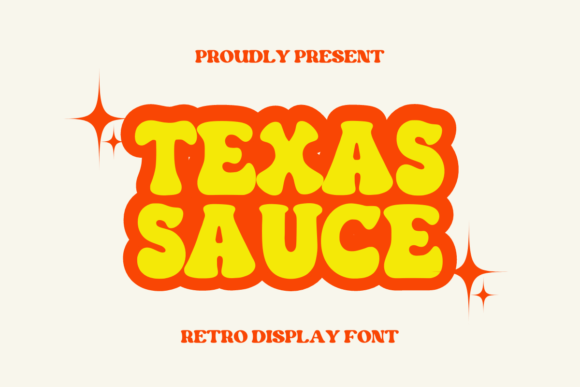
Get ready to add a dash of boldness and a dollop of vintage charm to your design projects with Texas Sauce Font, the ultimate display font family that oozes character and nostalgia. This unique creation from Masyafi Studio is not just any font; it's a journey through time, a fusion of classic aesthetics with a modern twist.
Texas Sauce Font is no ordinary display font; it's a gateway to the past, a window into the golden era of retro design. Its meticulously crafted characters exude a timeless elegance, reminiscent of hand-painted signs, weathered posters, and vintage advertisements. Each letterform carries the weight of history, inviting you to embrace the charm of yesteryears while keeping your designs firmly rooted in the present.
With its inherent versatility, Texas Sauce Font effortlessly adapts to a myriad of design scenarios. Whether you're crafting eye-catching posters, designing retro-themed websites, or creating unique logos with a touch of nostalgia, this font family is your trusty companion. Unleash your creativity and let Texas Sauce Font guide you through a world of vintage aesthetics, leaving an unforgettable impact on your audience.
Beyond its visual appeal, Texas Sauce Font holds a deeper power: it evokes emotions, stirring a sense of longing for a simpler time. Its vintage charm resonates with audiences, creating a connection that transcends the digital realm. Use Texas Sauce Font to tell stories that tug at heartstrings, to create designs that speak to the soul, and to leave an indelible mark on your customers' minds.
In a world saturated with conformity, Texas Sauce Font stands out as a beacon of individuality, a celebration of the unconventional. Embrace the beauty of imperfection, the raw energy of hand-drawn strokes, and the timeless allure of retro aesthetics. Let Texas Sauce Font be your artistic accomplice, guiding you towards designs that break free from the mundane and capture the essence of true originality.